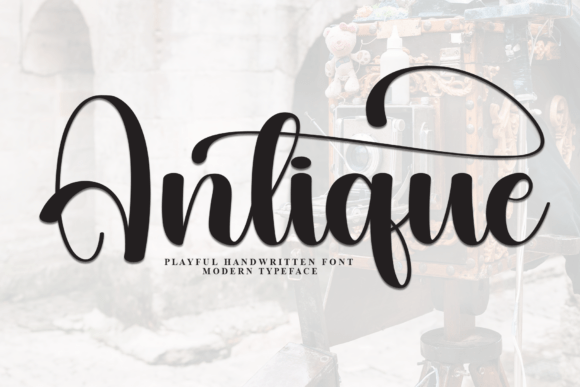
Discover the Charm of Antique Font: A Whimsical Handwritten Display Font
Are you looking for a font that can add a touch of warmth and lightheartedness to your design projects? Look no further than the Antique Font, a charming and personable handwritten display font that is sure to delight. With its adorable and lively style, this font is perfect for crafting wedding invitations, delightful cards, or any other design projects that crave an injection of fun!
The Perfect Blend of Sophistication and Whimsy
The Antique Font is imbued with a casual, sweet demeanor that can transform your design, adding an approachable, fun-loving mood effortlessly. This delightful script offers an entrancing blend of sophistication and whimsy, making it the perfect choice for designers and crafters who want to add a touch of personality to their work.
What Makes Antique Font So Special?
So, what sets the Antique Font apart from other fonts? Here are just a few reasons why this font is a must-have for any designer or crafter:
- Unique and Playful Style: The Antique Font has a unique and playful style that is sure to capture the attention of your audience. Its lively and charming demeanor makes it perfect for designs that need a touch of fun and personality.
- Casual and Approachable: Unlike other fonts that can come across as formal or stuffy, the Antique Font is casual and approachable. It’s perfect for designers who want to create a friendly and inviting atmosphere in their work.
- Versatile: The Antique Font is versatile and can be used for a wide range of design projects, from wedding invitations and cards to posters and social media graphics.
- Elegant and Refined: Despite its playful style, the Antique Font is also elegant and refined, making it perfect for designs that require a touch of sophistication.
How to Use Antique Font in Your Design Projects
Using the Antique Font in your design projects is easy. Here are a few tips to get you started:
- Pair it with Other Fonts: The Antique Font pairs well with other fonts, including serif and sans-serif fonts. Experiment with different combinations to find the perfect look for your design.
- Use it for Headings and Titles: The Antique Font is perfect for headings and titles, where its playful and charming style can really shine.
- Add it to Your Digital Designs: The Antique Font can be used in digital designs, such as social media graphics, blog posts, and email marketing campaigns.
- Use it for Print Designs: The Antique Font is also perfect for print designs, such as wedding invitations, cards, and posters.
Why Designers and Crafters Love Antique Font
Designers and crafters love the Antique Font for many reasons. Here are just a few:
- Easy to Read: The Antique Font is easy to read, even at small sizes, making it perfect for designs that require a lot of text.
- Highly Versatile: The Antique Font is highly versatile and can be used for a wide range of design projects.
- Unique and Eye-Catching: The Antique Font is unique and eye-catching, making it perfect for designers who want to stand out from the crowd.
In conclusion, the Antique Font is a charming and personable handwritten display font that is sure to delight designers and crafters. With its unique and playful style, casual and approachable demeanor, and versatile nature, this font is perfect for a wide range of design projects. Whether you’re creating wedding invitations, cards, or social media graphics, the Antique Font is sure to add a touch of warmth and lightheartedness to your work.
Get Ready to Fall in Love with Antique Font
If you’re looking for a font that can add a touch of personality and whimsy to your design projects, look no further than the Antique Font. With its adorable and lively style, this font is sure to capture the attention of your audience and leave a lasting impression. So why wait? Get ready to fall in love with the Antique Font and take your design projects to the next level!